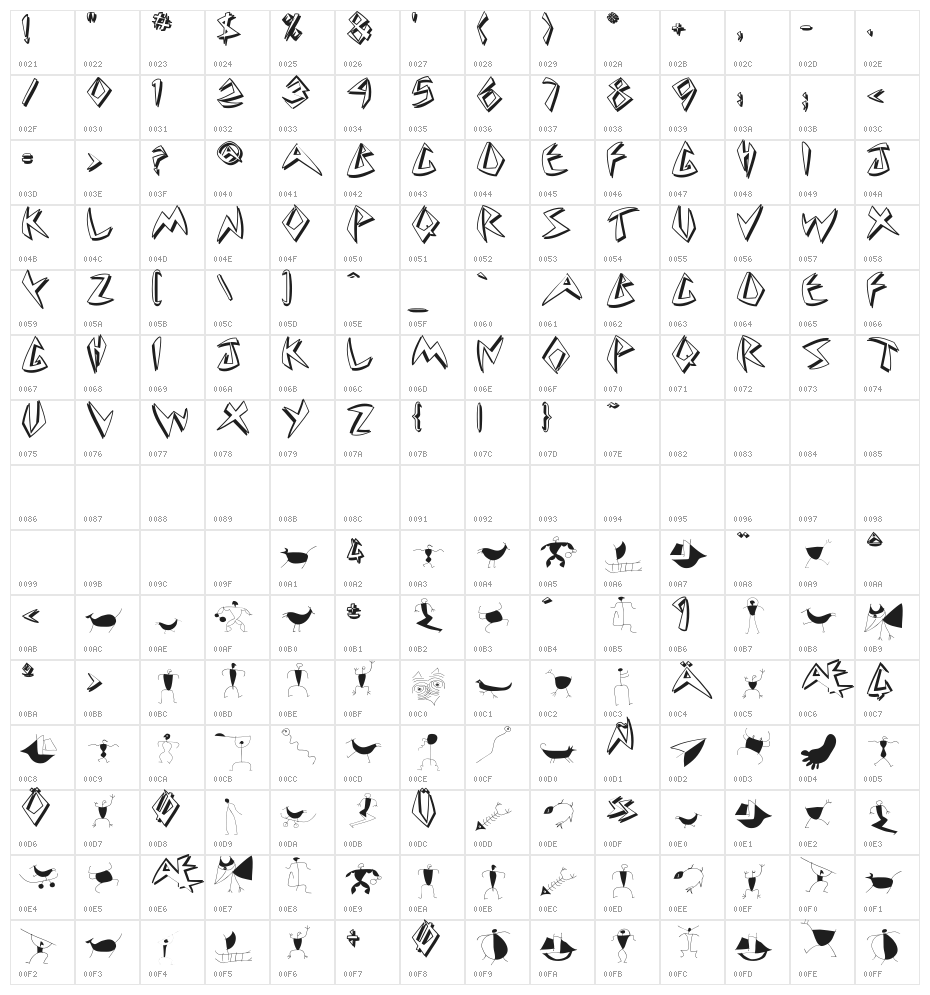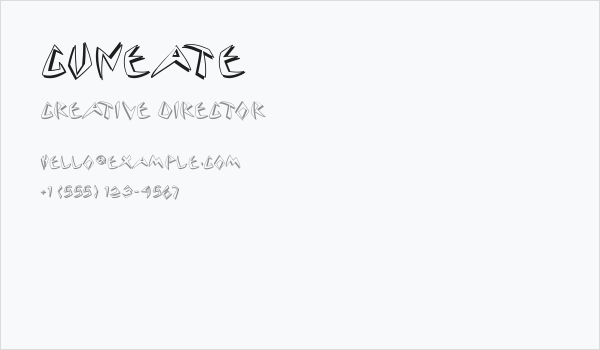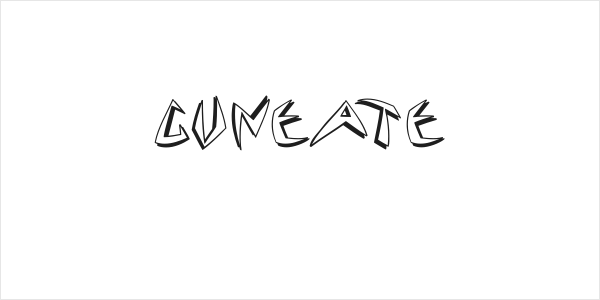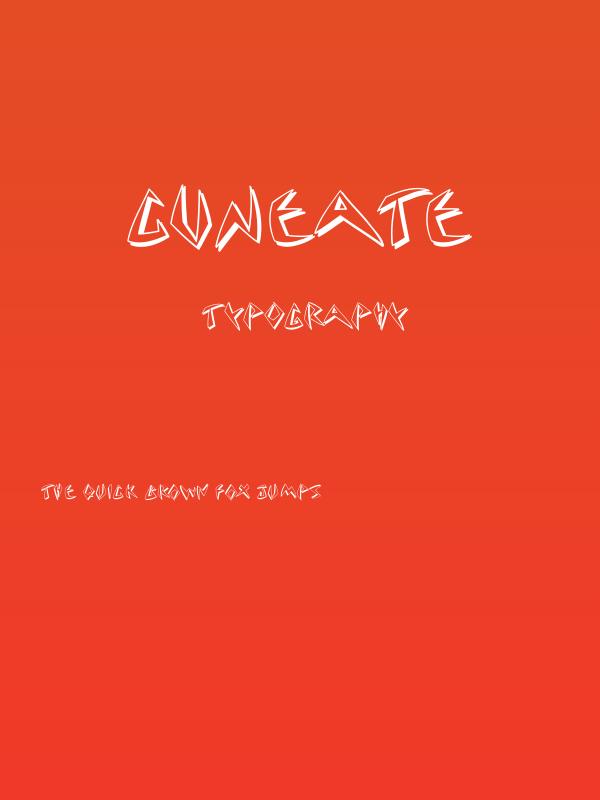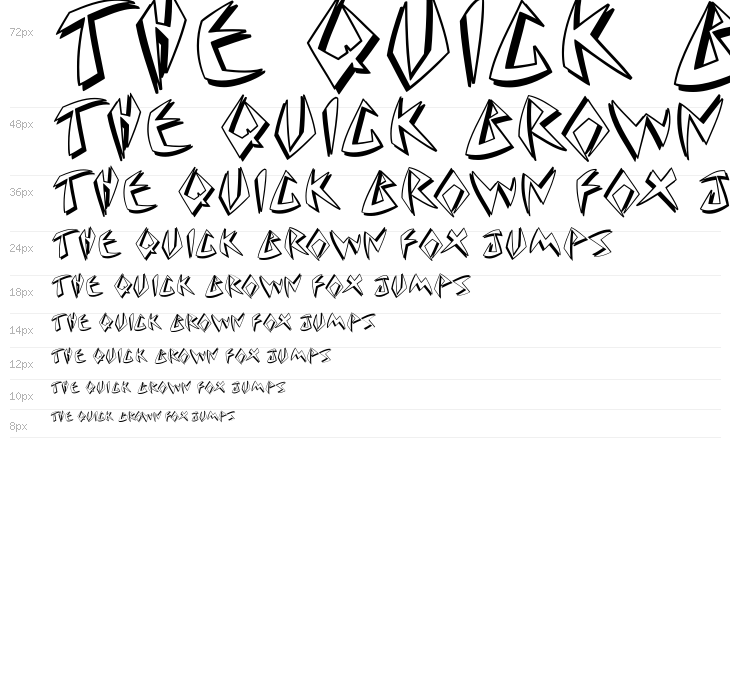
Cuneate Font
| Anwendungsfall | Logos, Headlines, Posters |
| Vorgeschlagene Projekte | Ideal for street art designs, music album covers, urban-themed posters, and edgy branding projects. |